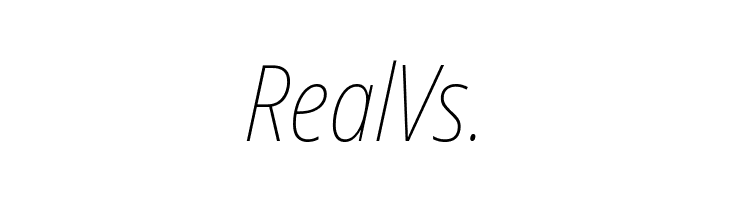
A bold, condensed sans-serif typeface with a modern and clean design.
A bold, condensed sans-serif font with a modern and impactful style.
A modern, extra bold, condensed sans-serif font with italic styling.
A bold, italic, and condensed typeface with a modern and assertive style.
A modern, extra light, condensed sans-serif font with excellent readability.
A modern, condensed, extra light italic typeface with a sleek and elegant design.
A modern, condensed sans-serif font with an extra light weight and italic style.
A modern, condensed sans-serif font with an italic style.
A modern, condensed sans-serif italic font with a clean and dynamic style.
A modern, condensed sans-serif font with a light weight and minimal stroke contrast.
A modern, condensed sans-serif font with light strokes and excellent readability.
A sleek, modern, condensed italic typeface with light strokes and tight spacing.
A modern, condensed, light italic sans-serif font with a clean and elegant design.
A modern, condensed sans-serif font with medium weight and low contrast.
A modern, condensed sans-serif font with a clean and professional look.
A modern, condensed sans-serif font with italic styling and medium weight.
A modern, condensed sans-serif font with medium weight and italic style.
A modern, semi-bold, condensed sans-serif font with excellent readability.
A modern, sans-serif typeface with condensed, semi-bold letterforms.
A modern, condensed sans-serif font with semi-bold weight and italic style.
A modern, semi-bold, italic sans-serif font with a condensed structure and medium contrast.
A modern, thin, and condensed sans-serif typeface with excellent legibility.
A modern, thin, and condensed sans-serif font with excellent legibility.
A sleek, thin, condensed sans-serif font with an elegant italic style.
A sleek, modern, and condensed italic font with a thin profile.
A clean and modern font designed for the Coptic script, emphasizing readability and clarity.
A structured, geometric font representing ancient cuneiform script.
No valid font is displayed; only missing glyph boxes are present.
A modern, minimalist font representing the Deseret alphabet with uniform, rectangular glyphs.
A bold, modern sans-serif font with a clean and assertive appearance.